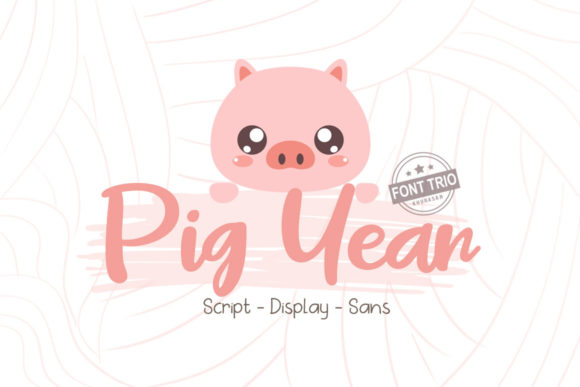
**Introducing Pig Year: The Font That Will Make Your Designs Pop!**
In the realm of typography, where fonts reign supreme, allow us to introduce you to Pig Year – a script font that dances across your screen with playful elegance. Crafted by the masterful hands of Khurasan, this font is a symphony of whimsical charm, ready to add a touch of magic to all your creative endeavors.
Pig Year is not just another font; it's an invitation to unleash your imagination. Its graceful curves and playful strokes have the power to transform your words into eye-catching masterpieces. Inspired by the adorable nature of piglets, this font embodies the spirit of happiness and mischief, making it ideal for projects that demand a touch of whimsy.
Whether you're a seasoned designer or just starting your typographic journey, Pig Year is the perfect companion for a wide range of projects. Its versatility knows no bounds – from whimsical invitations and heartwarming greeting cards to eye-catching social media posts and enchanting logos. With Pig Year, you'll have the creative freedom to express your unique style and captivate your audience.
So, if you seek a font that sparks joy and adds a touch of playful charm to your designs, look no further than Pig Year. Embrace the power of typography, let your creativity soar, and make your projects shine with the irresistible allure of Pig Year!